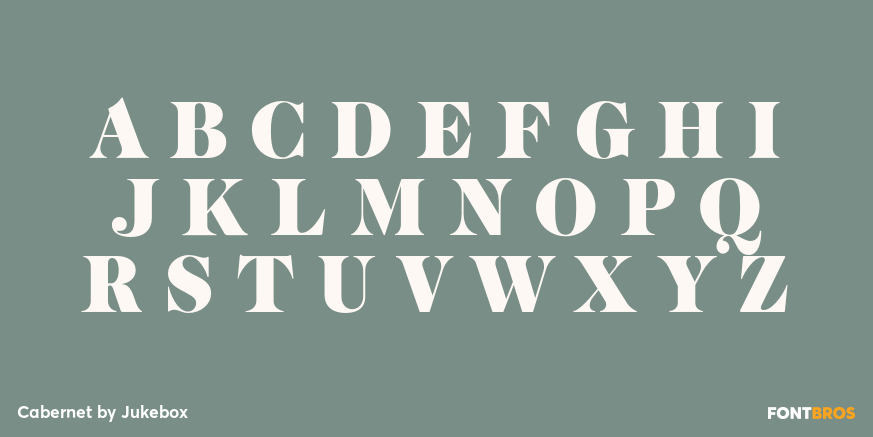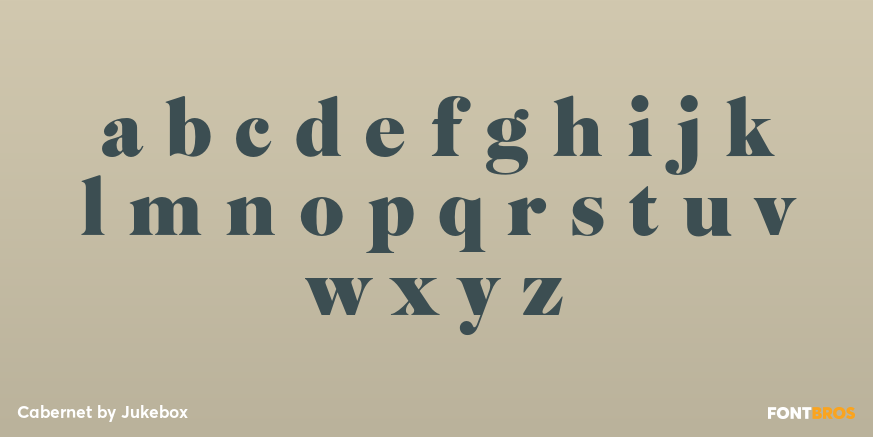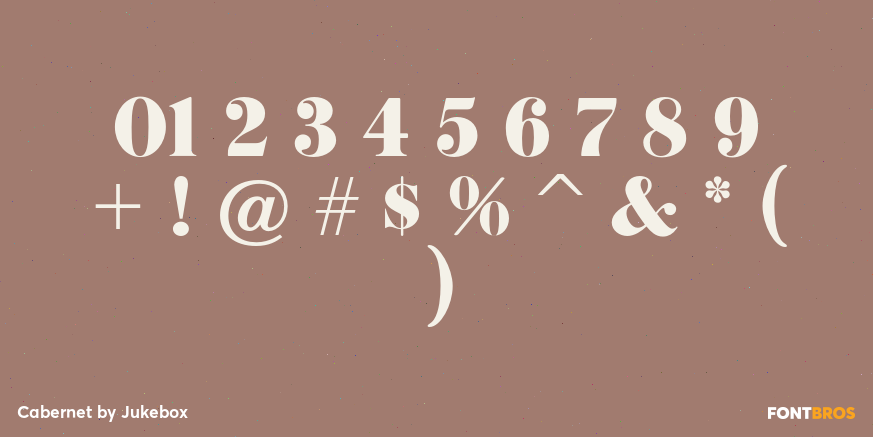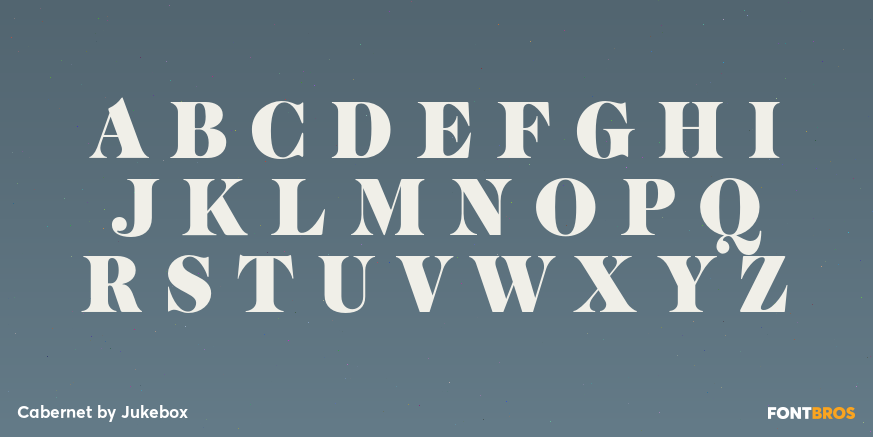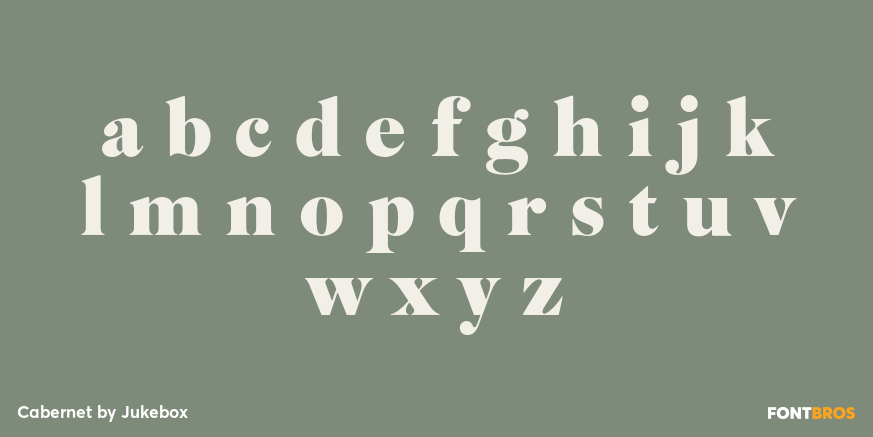
Cabernet
Font Family by Jukebox
Cabernet is a two-style family from Jukebox that pairs a classic, caslon-style sensibility with a distinctly retro feel. With Regular and Italic styles included, it brings a warm, slightly vintage voice that feels at home in display settings where character matters.
The overall look leans into mid-century and late-1960s references, making it a strong choice for packaging, posters, branding, and other design work that calls for a nostalgic yet readable serif presence. The italic adds an extra layer of movement and contrast, useful for emphasis, secondary copy, or more expressive logo treatments.